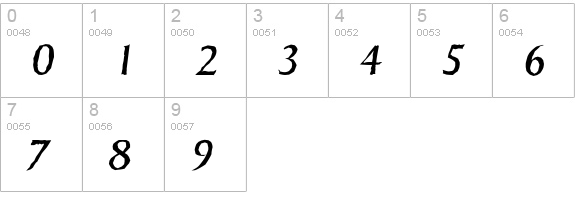
SigvarAntique-Italic Font Details
SigvarAntique-Italic is a distinctive, italic variant in the SigvarAntique typeface family \xE2\x80\x94 well suited to design and typography projects.
SigvarAntique-Italic is a timeless and elegant font that exudes sophistication and charm. Its delicate, slanted letterforms convey a sense of refinement and classic beauty, making it the perfect choice for projects that require a touch of old-world glamour. Whether you're designing invitations, branding materials, or editorial layouts, SigvarAntique-Italic will add a touch of sophistication to your work. The fluid curves and graceful serifs of SigvarAntique-Italic create a sense of movement and grace, drawing the eye effortlessly across the page. Its versatility allows it to be used in a variety of design contexts, from formal to whimsical, making it a valuable addition to any designer's toolkit. Best of all, SigvarAntique-Italic is available for free download at FontsMarket.com. This means you can add this stunning font to your collection without any cost, enabling you to elevate your designs without breaking the bank. Download SigvarAntique-Italic today and bring a touch of timeless elegance to your next project.